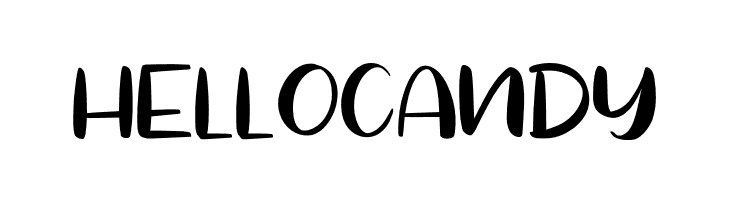
( Fonts by FatmaStudio )
A bold, playful font with rounded, dynamic letterforms.
( Fonts by Fonta Benka )
A playful, hand-drawn font with rounded edges and a whimsical style.
( Fonts by FatmaStudio )
A playful, bold, handwritten-style font with rounded strokes and tight spacing.
( Fonts by Jos Gandos )
A playful, hand-drawn font with rounded, friendly characters and whimsical flourishes.
( Fonts by Jen Jones )
A playful, hand-drawn outlined font with a whimsical and creative style.
( Fonts by Jen Jones )
A playful, hand-drawn font with bold outlines and a whimsical style.
( Fonts by Jen Jones )
A playful, handwritten font with a bold and whimsical style.
( Fonts by Jen Jones )
A playful, hand-drawn font with a whimsical and lively style.
( Fonts by Bandit handmade )
A playful, bold, and hand-drawn font with rounded strokes and a dynamic slant.
( Fonts by StringLabs Creative Studio )
A playful, whimsical font with bold strokes and rounded edges, offering a hand-drawn feel.